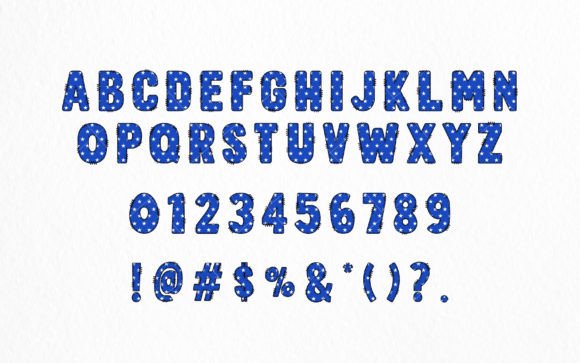
Introduction to Blue Star Army Font
Experience a taste of Americana with the uniquely inspired American Font.
This one-of-a-kind typeface personifies the grace and strength of the Stars and Stripes, channeling the spirit of the American flag into each individual character A perfect fusion of design and patriotism, this font is a testament to the courage, unity, and freedom represented by the USA.